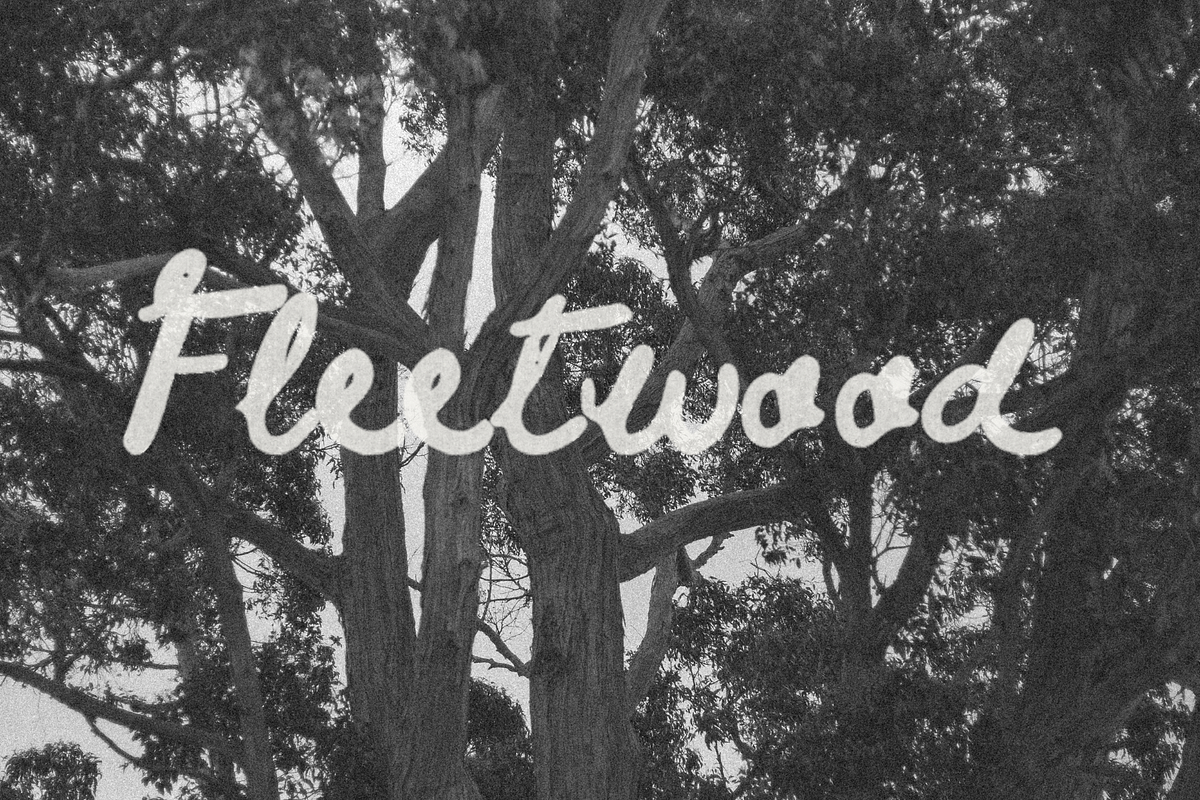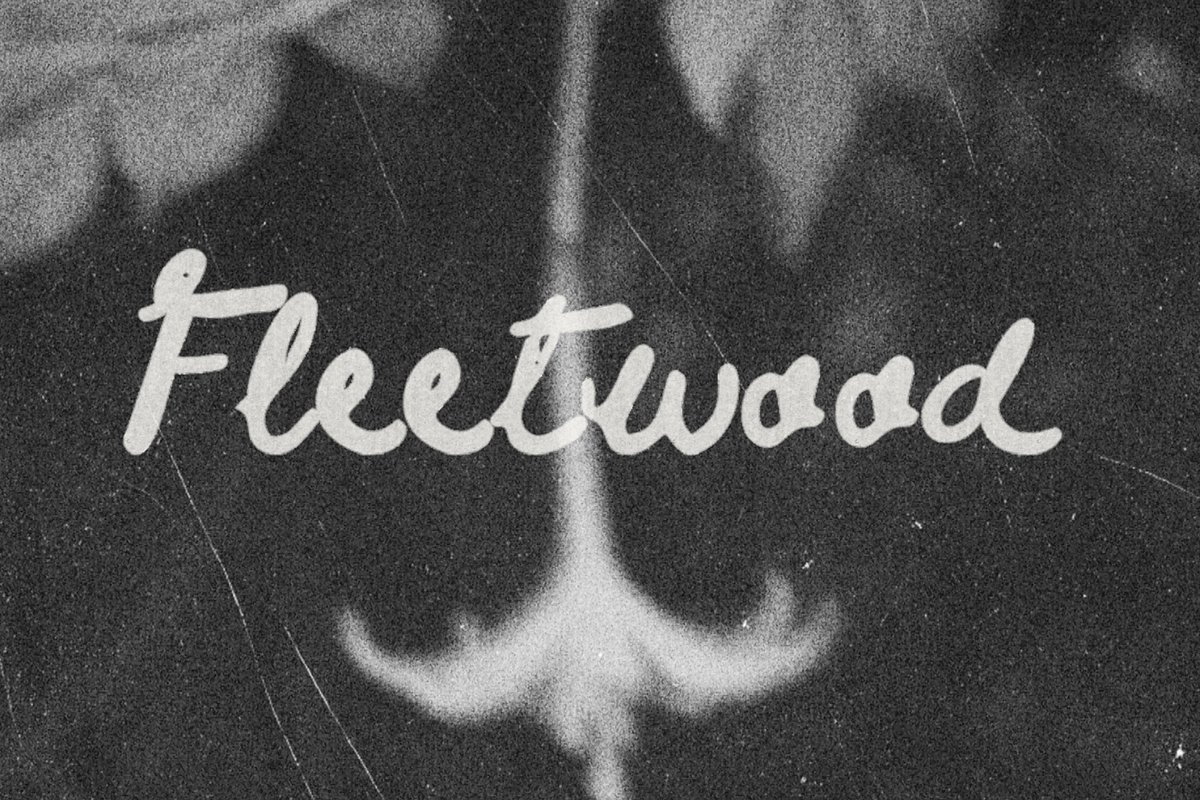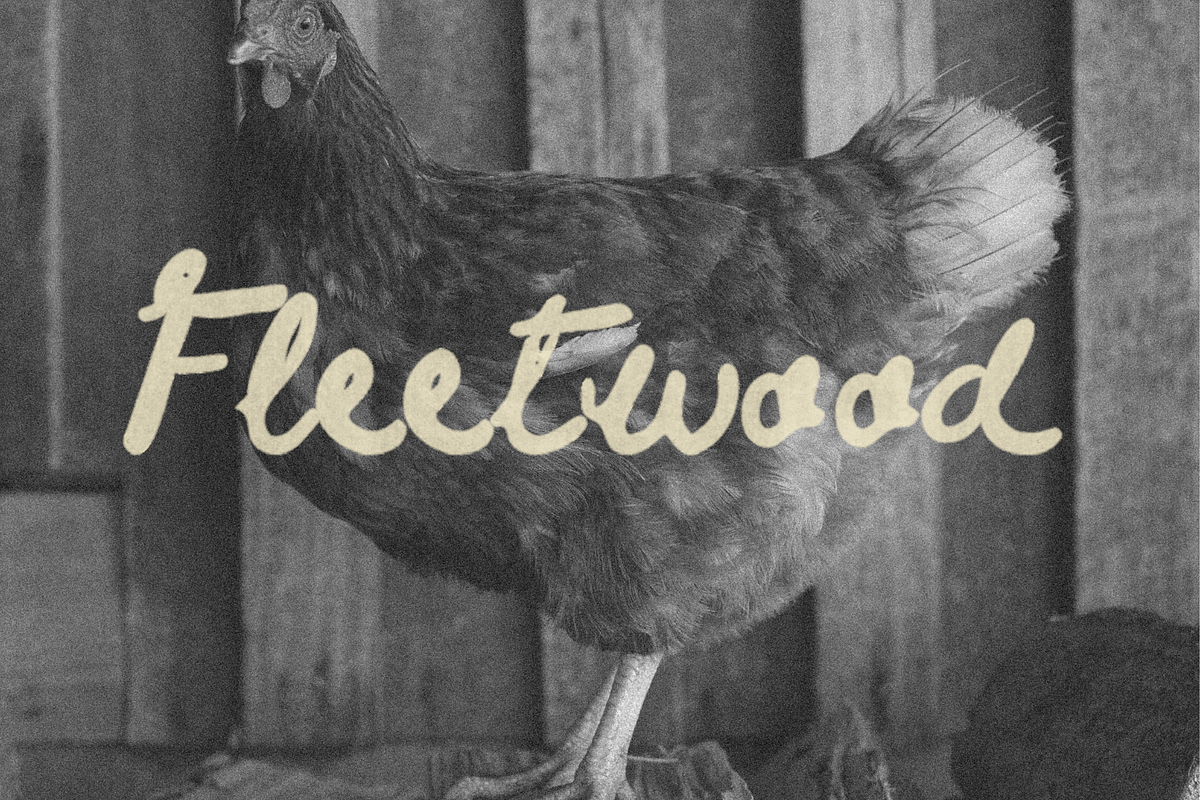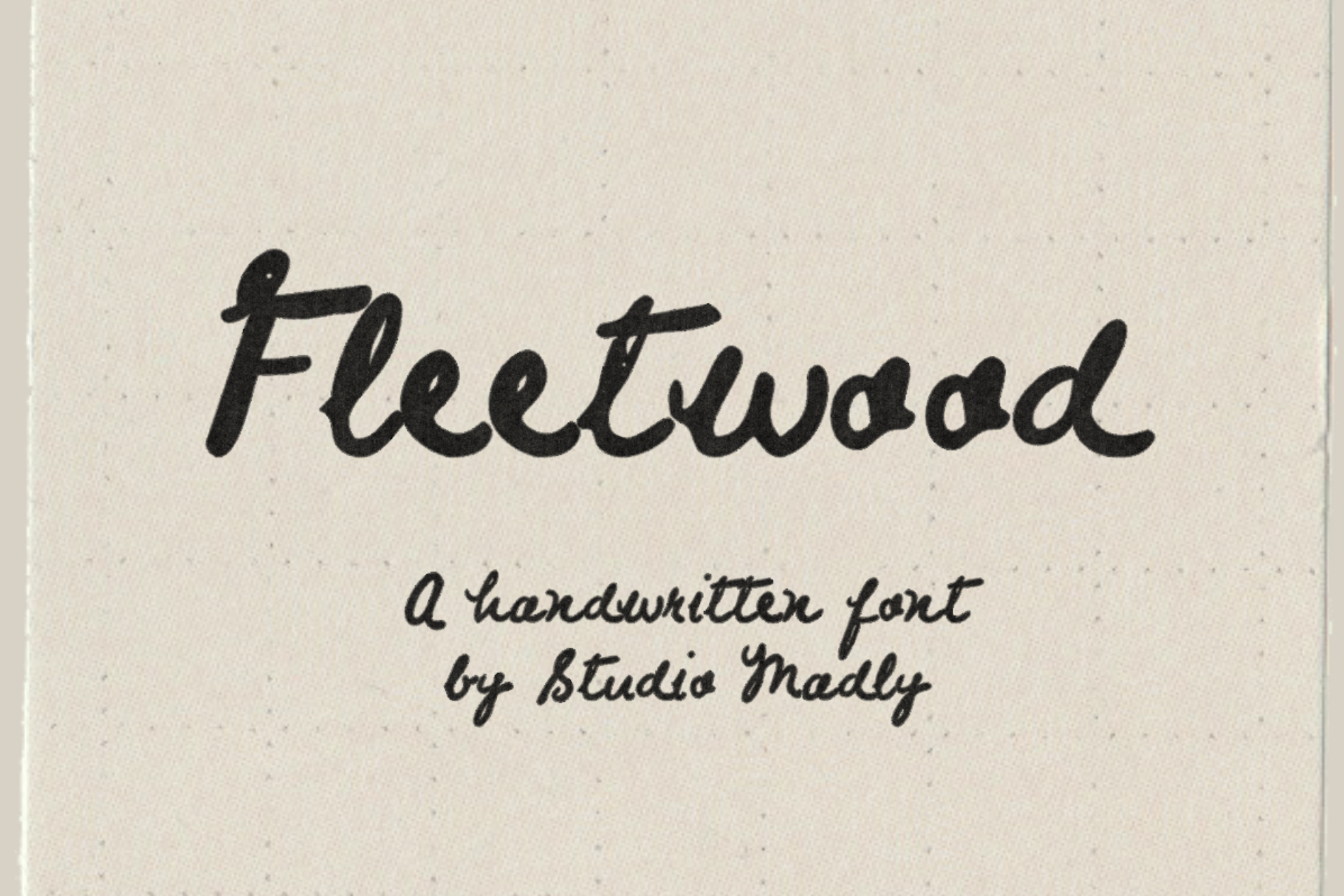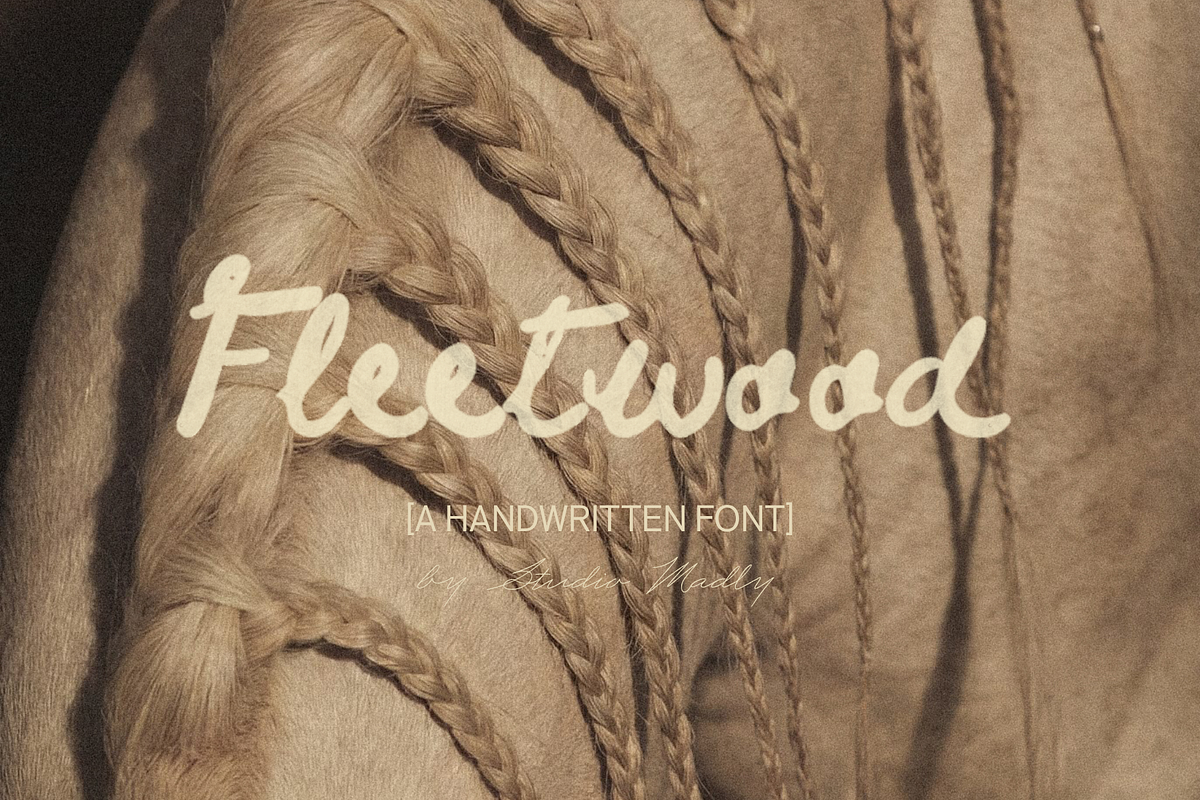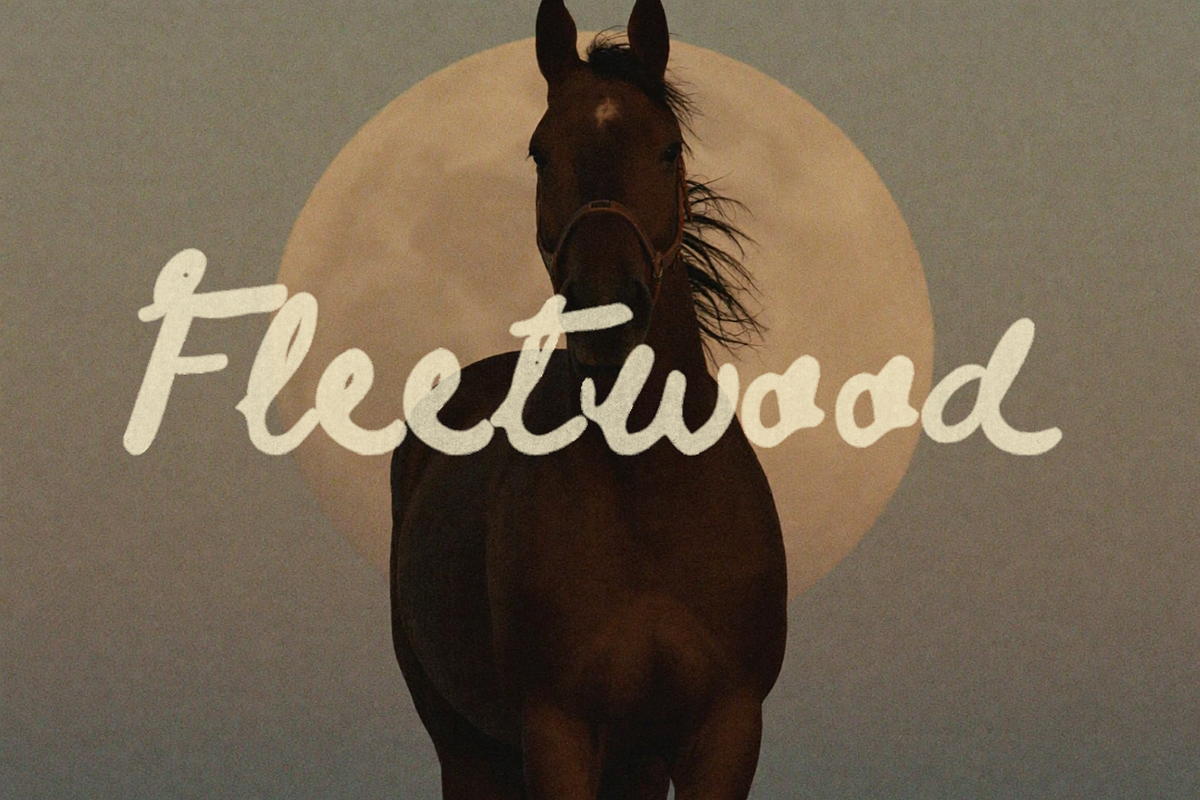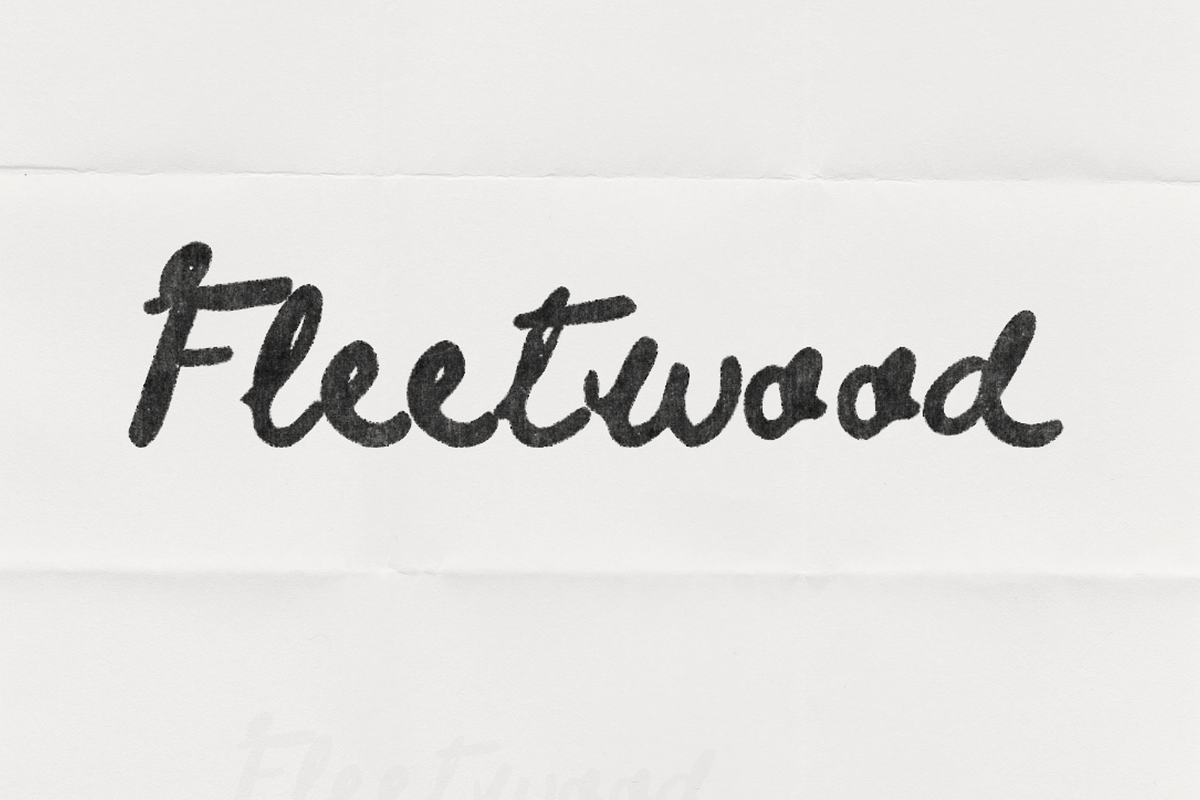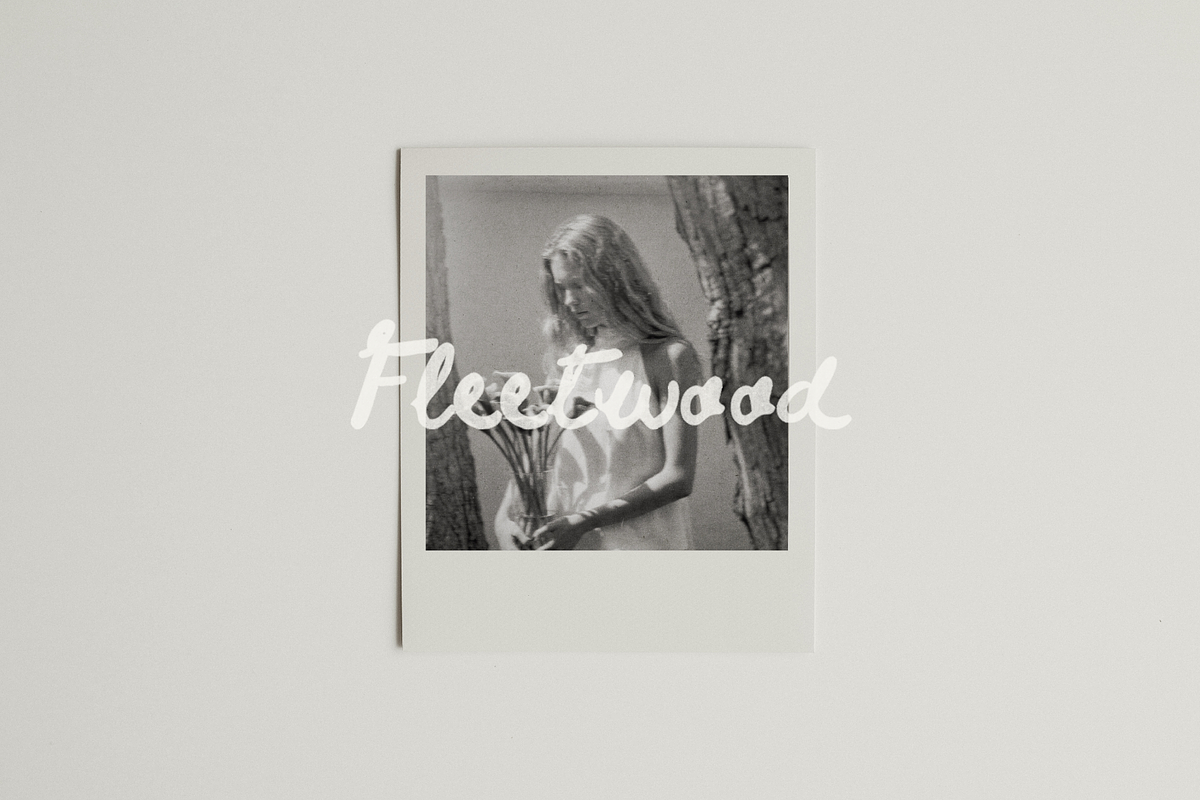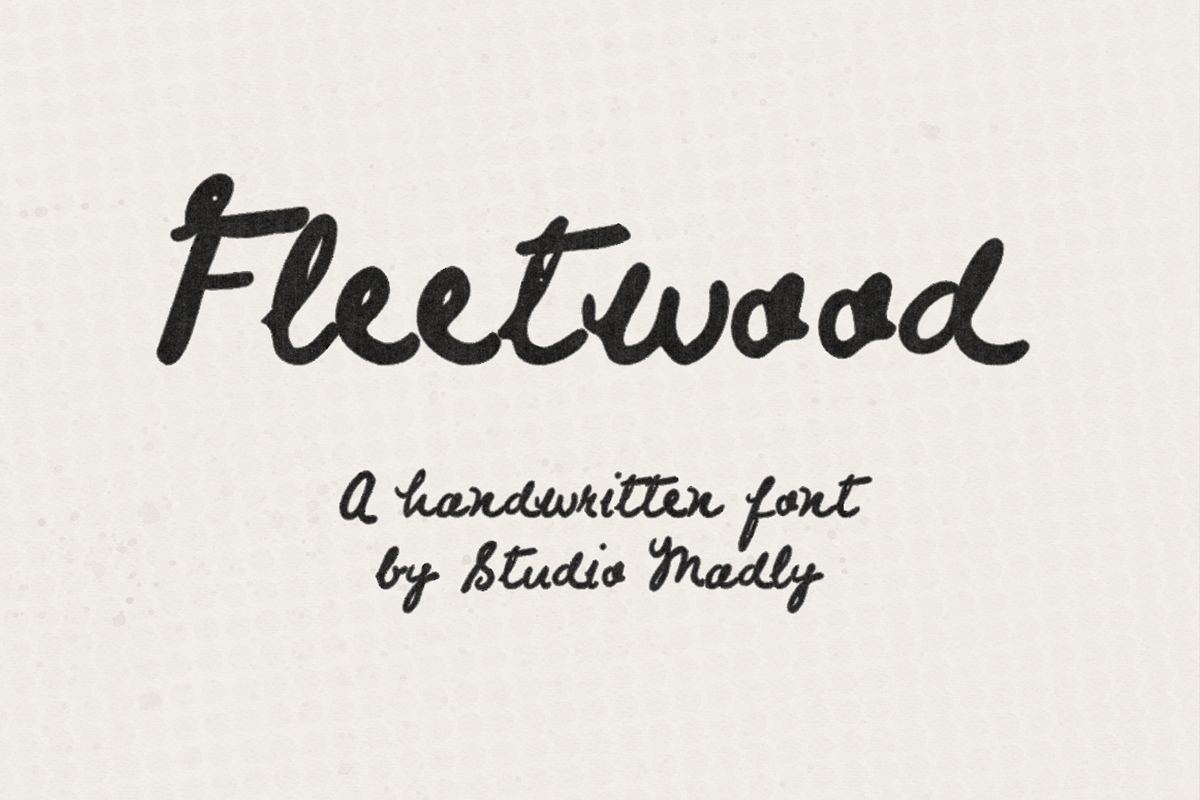
Fleetwood - A Handwritten Font
Fleetwood is a brushy, imperfect handwritten script with an organic, lived-in soul. Every letterform carries the natural variation of a real hand — irregular strokes, honest ink pooling, and the kind of raw authenticity that no digital tool can fake. It's casual but characterful, loose but legible.
It's earthy, folky, nostalgic, artisan, free-spirited & vintage-inspired.